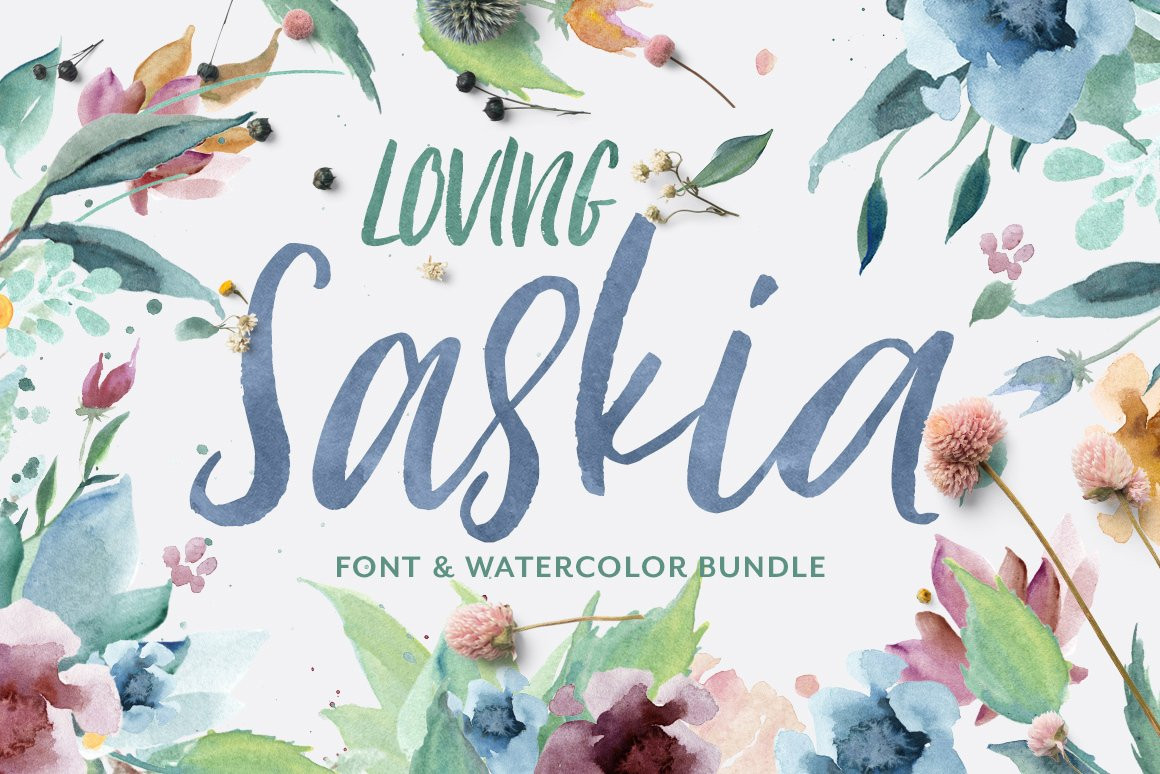
NEW Introducing **Loving Saskia** - a beautiful script font and all caps duo **PLUS** watercolor clipart and pattern bundle! ------------------------------------- *Loving Saskia font is a brush pen script font thats easy to read and looks amazing in lowercase or all uppercase. It is the perfect font for branding, invites, logos, quotes, posters, packaging, and so much more!*